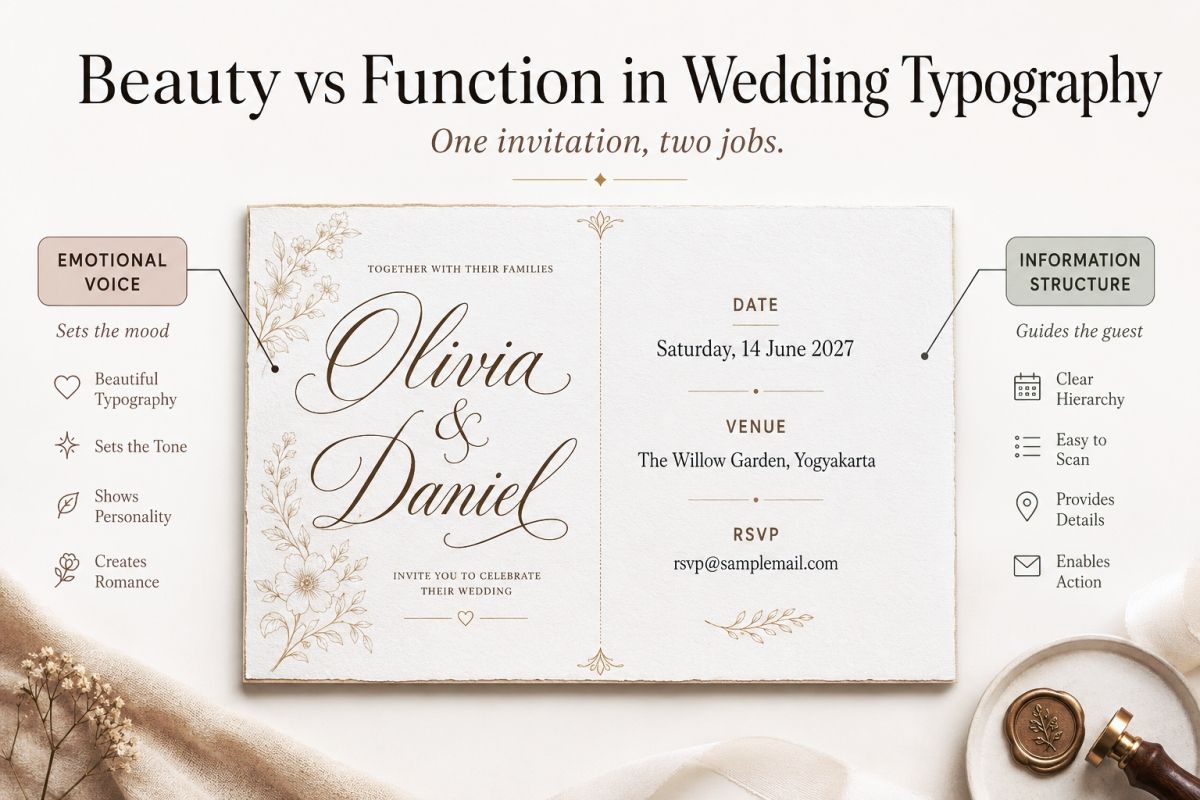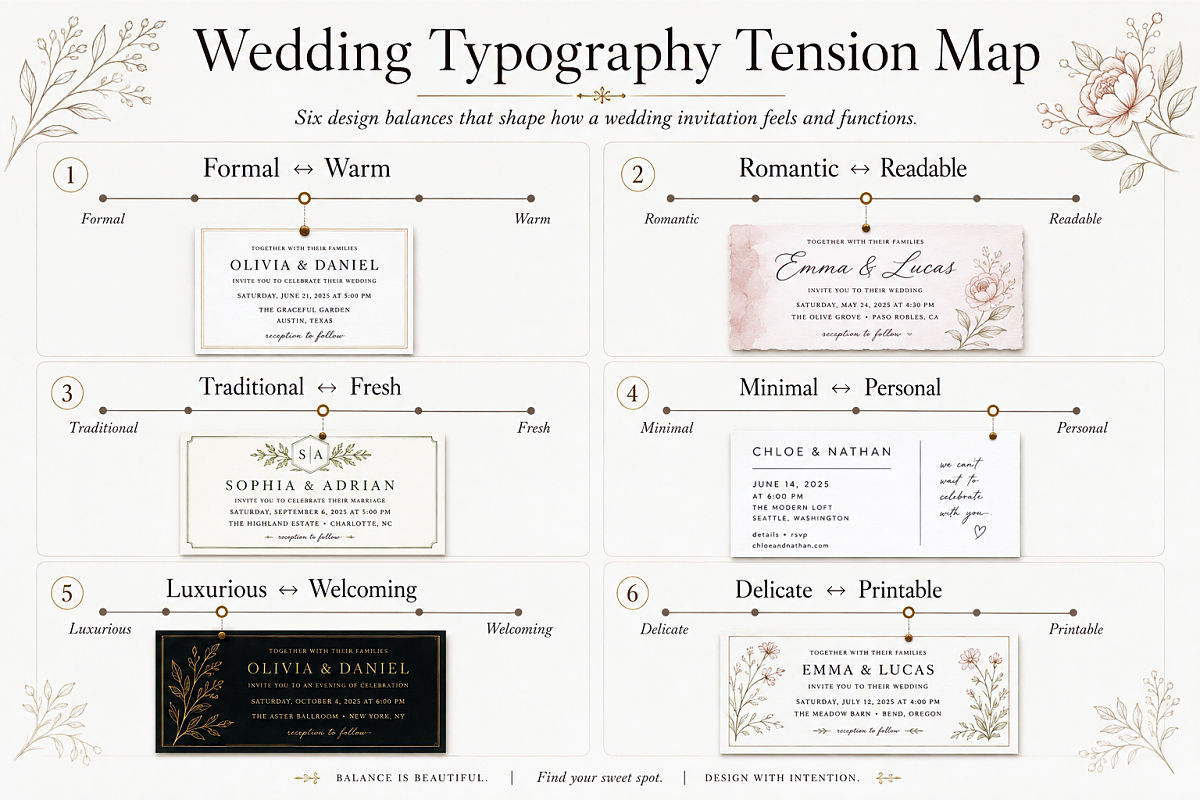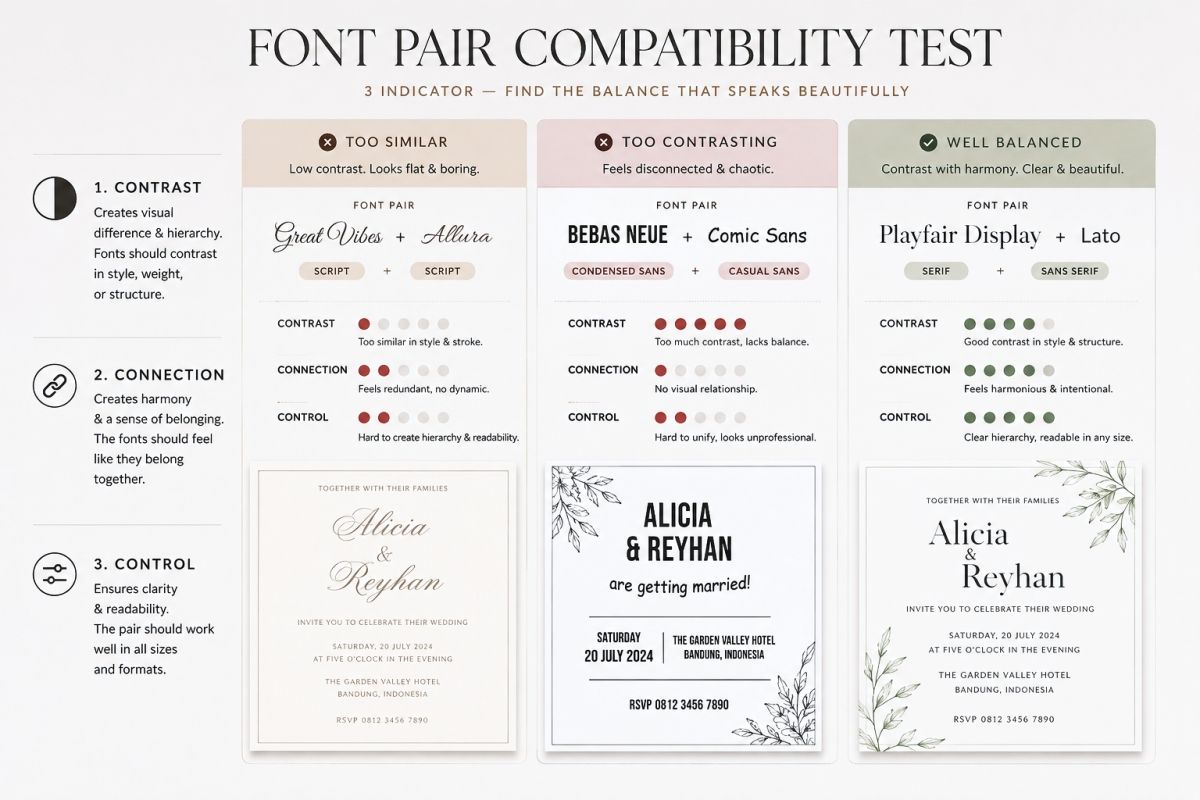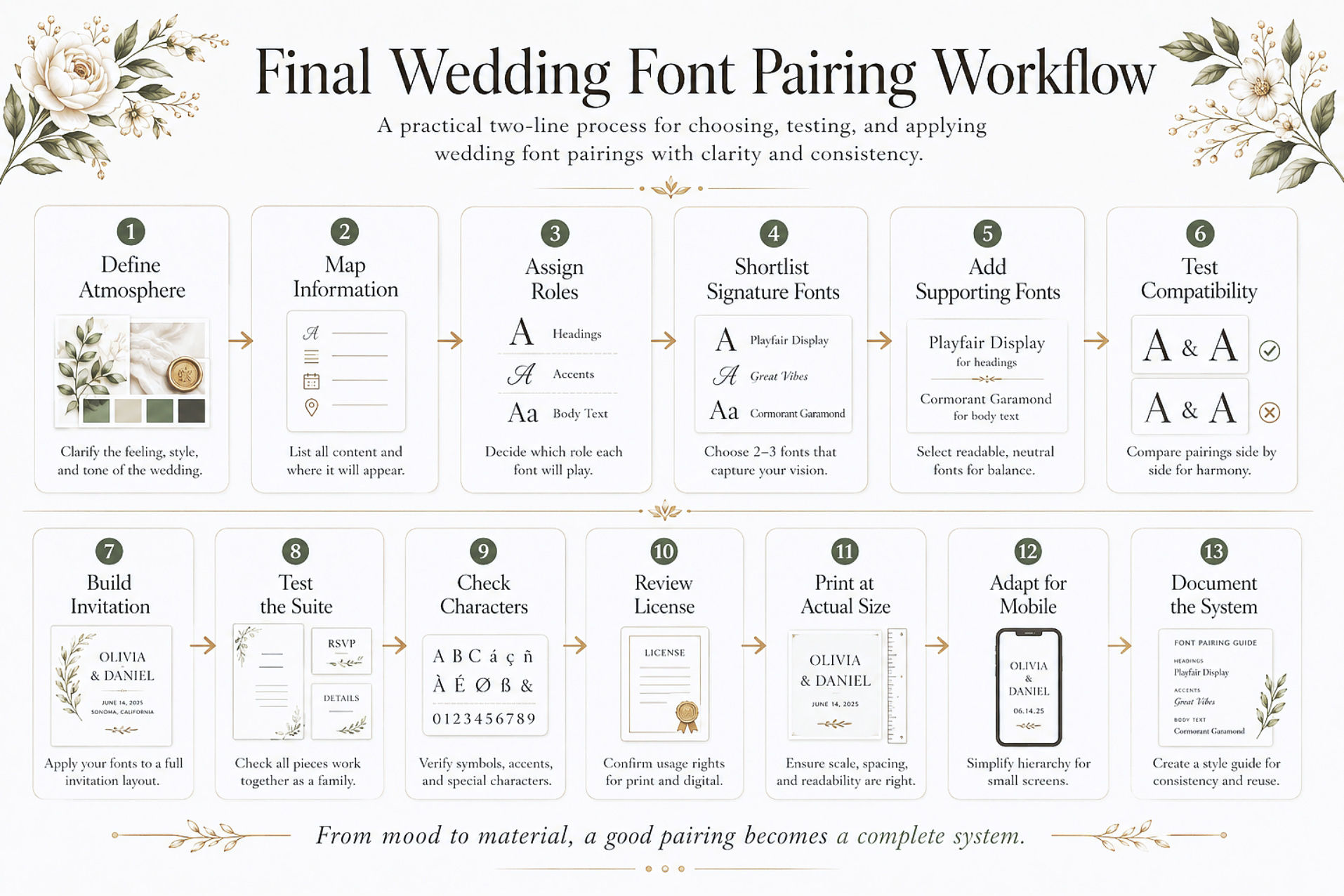
Font Pairing for Wedding Invitations: Elegant Combinations!
A beautiful wedding font can catch your attention.
A thoughtful font pairing does something more.
It creates atmosphere, organizes information, and connects every piece of the wedding stationery. It can make a simple invitation feel romantic, formal, modern, personal, or quietly luxurious.
The challenge is that many wedding font combinations look impressive in a font preview but fall apart when you add real names, long venue details, dates, and RSVP information.
That is why I approach font pairing for wedding invitations as a small design system rather than a search for two pretty fonts.
One font can carry emotion. The other can provide structure.
When those roles are clear, your invitation feels elegant without becoming decorative everywhere. It also has a better chance of looking timeless rather than tied to one passing trend.
What Makes a Wedding Font Pair Feel Timeless?
Timeless typography does not have to look traditional.
It does not always require calligraphy, thin gold lettering, or a classical serif. A clean sans serif can feel timeless too. So can a modern editorial serif or a simple handwritten font.
The real quality comes from balance.
A timeless pairing usually combines:
• Personality with readability
• Contrast with visual connection
• Romance with structure
• Distinction with restraint
• A memorable detail with familiar letterforms
The fonts should not look identical. That would make the hierarchy feel weak.
They should not fight for attention either.
Think of the pairing as a conversation. One voice may be expressive. The other stays calm and makes the message easier to follow.
That relationship matters more than the individual font categories.
Start With the Wedding Mood, Not the Font Menu
Opening your font library too early can make the process harder.
You may see hundreds of scripts, serifs, and decorative typefaces. Many will look beautiful on their own. Only a small group will support the atmosphere you actually need.
I prefer to define the wedding through two-sided qualities first.
Wedding tensionWhat the typography needs to achieve
Formal ↔ WarmRefined without feeling distant
Romantic ↔ ReadableSoft without becoming fragile
Traditional ↔ FreshFamiliar structure with a current detail
Minimal ↔ PersonalClean composition with human character
Luxurious ↔ WelcomingPremium without looking intimidating
Playful ↔ ControlledExpressive without becoming chaotic
Delicate ↔ PrintableFine details that survive production
Choose two or three tensions that describe the celebration.
For example, a garden wedding may need to feel romantic, natural, and intimate. A black-tie hotel wedding may need to feel formal, restrained, and polished. A city ceremony may feel architectural, modern, and warm.
These words give you a better filter than simply searching for “elegant wedding fonts.”
Give Each Font a Clear Role
One of the most common pairing mistakes is using both fonts everywhere.
The script appears in the names, date, venue, headings, and RSVP details. The serif appears beside it without any consistent logic.
The invitation may contain only two fonts, but it still feels busy.
A better system starts with roles.
The signature font
This is the expressive voice.
It may be a formal calligraphy font, modern script, handwritten signature, editorial serif, or distinctive display typeface.
Use it for short, memorable content such as:
• The couple’s names
• Initials or a monogram
• A short heading
• A meaningful phrase
• Selected menu or stationery titles
The signature font creates the emotional impression.
It should not carry every detail.
The reading font
This font handles information.
Use it for:
• Invitation wording
• Dates and times
• Venue details
• Dress codes
• RSVP instructions
• Wedding website addresses
• Accommodation information
It needs clear letterforms, useful punctuation, readable numerals, and enough weight to reproduce well.
In most invitation designs, these two fonts can cover the entire system.
You can create additional hierarchy through size, weight, capitalization, italics, spacing, and alignment instead of introducing a third typeface.
The Compatibility Test: Contrast, Connection, and Control
A useful font pair needs more than contrast.
A script and sans serif are technically different, but that does not automatically make them compatible. The script may feel soft and vintage while the sans serif feels geometric and futuristic.